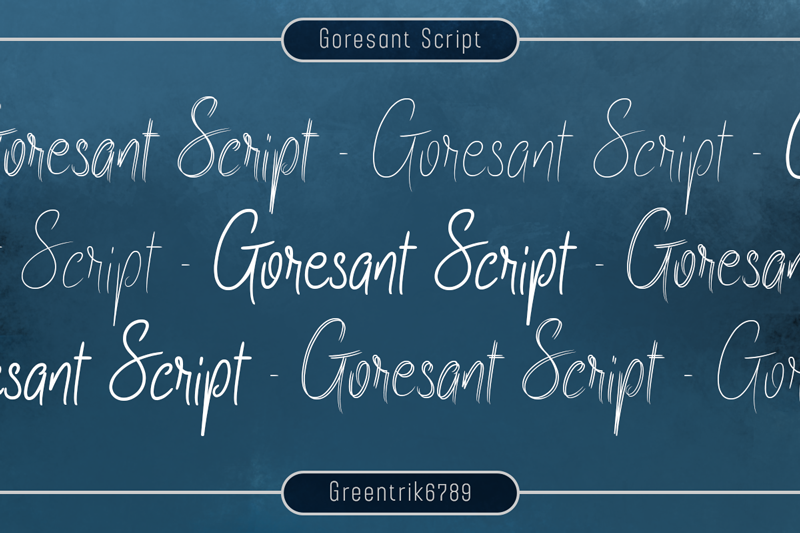
Font name: | Goresant Script |
Author: | Tri Kuncoro |
Note by Tri Kuncoro | |
Goresant Script is a beautiful and refined script font. It has a classy, elegant and modern look that can be used for logos, branding, invitations, stationery, wedding designs, social media posts, and much more! FREE PERSONAL USE! Need commercial use? Get Here: https://www.creativefabrica.com/product/goresant-script/ref/237607/ |